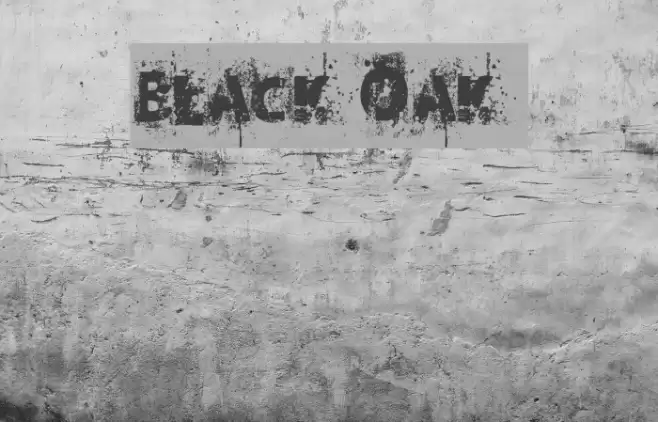
Black Oak Font
Black Oak Description
This font features a bold and distressed style, characterized by its rough, textured appearance that mimics a grunge or worn-out effect. The letters are uppercase and have a heavy, impactful presence, making them stand out in any design. The texture gives each character a unique, rugged look, adding a sense of depth and personality. This font is ideal for projects that require a strong, edgy aesthetic, such as music album covers, posters, or any design that aims to convey a rebellious or gritty vibe. The irregularities in the texture provide a dynamic and eye-catching element, ensuring that the text captures attention.
A bold, distressed font with a grunge texture, perfect for edgy designs from Distorted Eroded fonts.
- Proposed Projects: Ideal for music album covers, posters, and designs needing a gritty, rebellious vibe.
- Overall Style: Grunge, Edgy